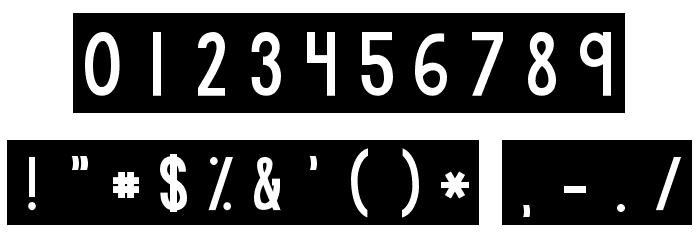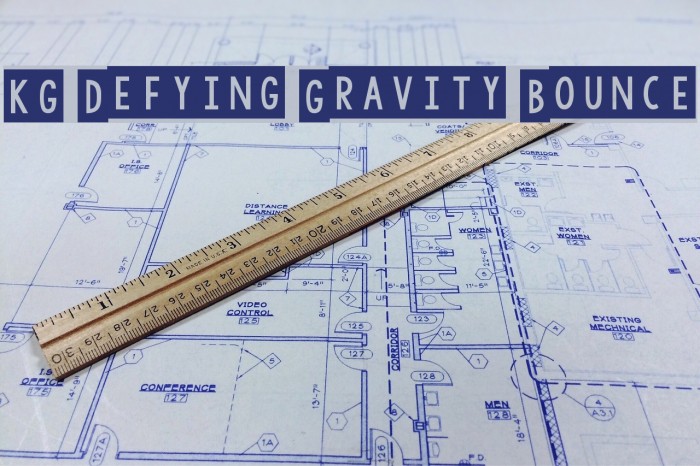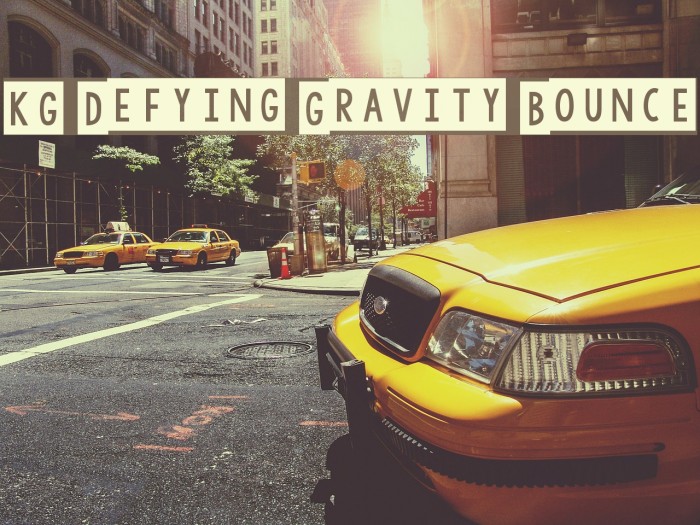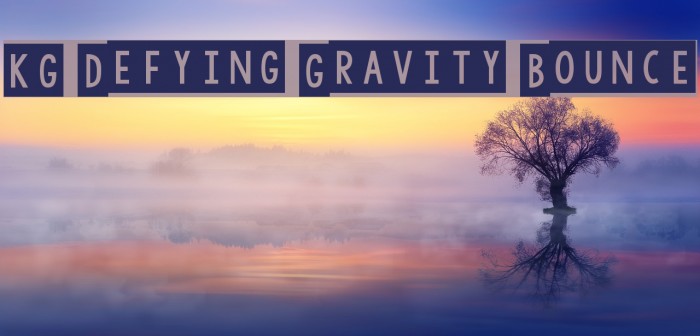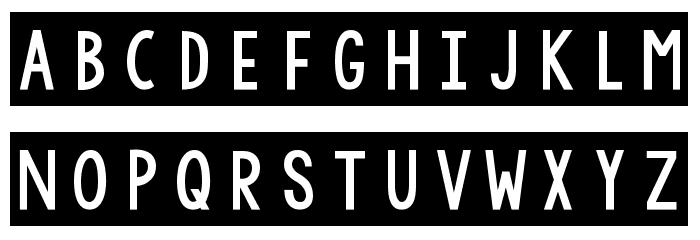
KG Defying Gravity Bounce Font
KG Defying Gravity Bounce Description
This font features a playful and dynamic style with a bouncy, lively appearance. The letters are bold and slightly condensed, giving them a strong presence while maintaining a sense of fun and movement. The uppercase and lowercase letters are consistent in their design, with rounded edges and a slight tilt that adds to the whimsical feel. The numerals and special characters follow the same playful aesthetic, making this font suitable for creative and informal projects. The overall look is modern and engaging, perfect for capturing attention.
A playful, bold font with a bouncy and dynamic style from Decorative fonts.
- Proposed Projects: Ideal for children's books, playful branding, party invitations, and creative posters.
- Overall Style: Playful, Modern